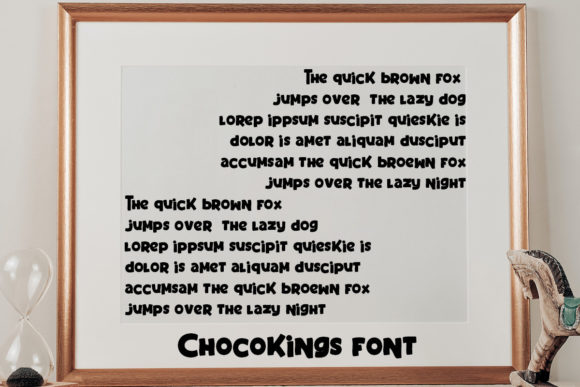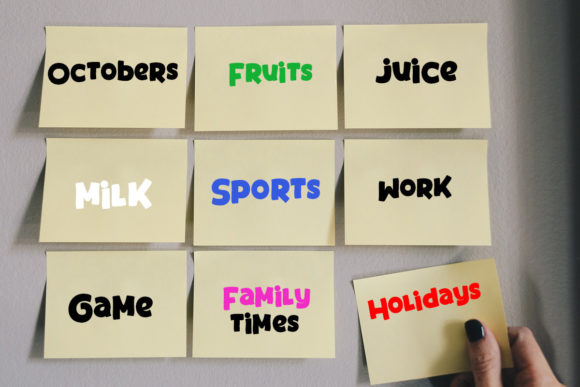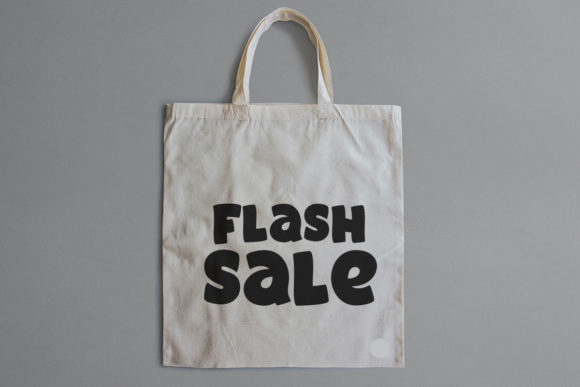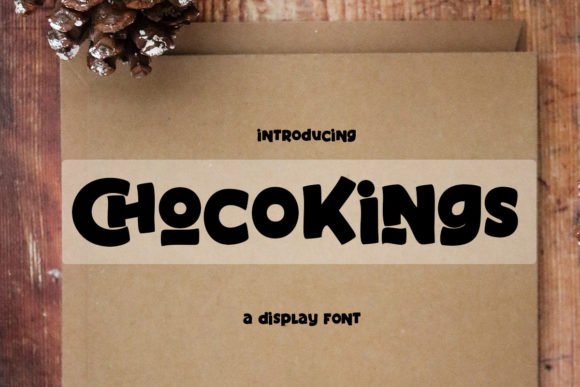
Introduction to Chocokings Font
Chocokings is an adorable and unique display font that embodies playfulness and charm in every character.
It has a clear read that makes it suitable for a wide variety of projects This font is PUA encoded which means you can access all of the glyphs and swashes with ease.
Key Features of Chocokings Font